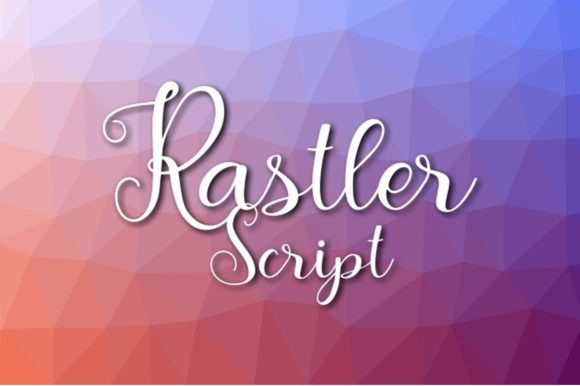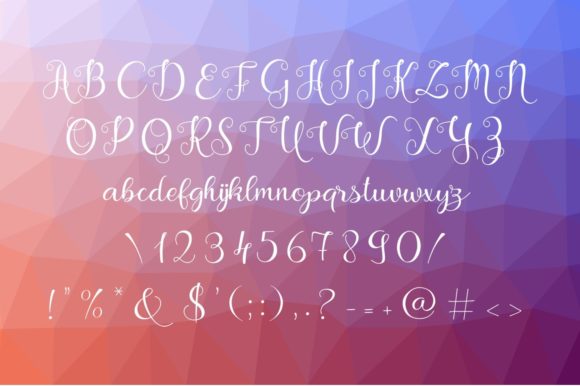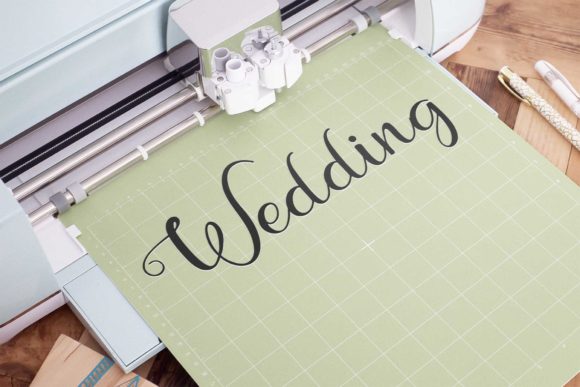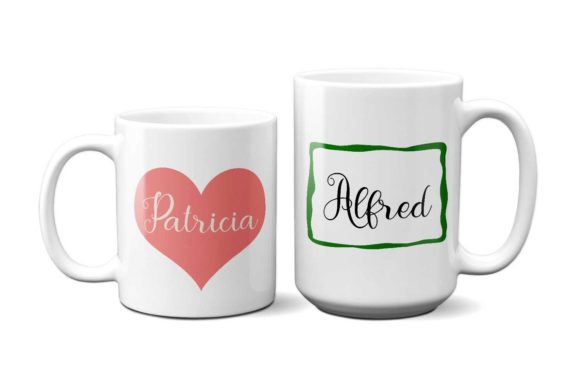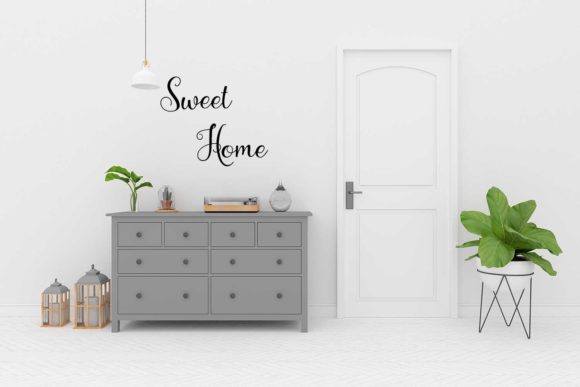
Rastler Font
About Rastler Font
Introducing Rastler, a chic and refined script font that exudes sophistication and elegance. With its stylish alternates and ligatures, Rastler is the perfect choice for adding a touch of class and elegance to any project.
Rastler’s sleek and flowing letterforms capture the essence of sophistication. Each character is meticulously crafted to maintain a balance between elegance and readability, creating a harmonious composition. The stylish alternates and ligatures add versatility and variety, allowing you to customize the look and feel of your designs.
The versatility of Rastler makes it suitable for a wide range of projects. Whether you’re working on branding, wedding invitations, logos, product packaging, or any other creative endeavor, Rastler adds a refined and polished touch. Its script nature creates a sense of elegance and grace, elevating the overall aesthetic of your designs.
Rastler’s chic and refined style makes it a perfect match for various design contexts. The stylish alternates and ligatures provide endless possibilities for customization, ensuring that your designs stand out. Whether used for creating elegant logos or adding a touch of sophistication to typography, Rastler brings a sense of class and elegance.
No matter the project or theme, Rastler has the potential to enhance any creation. Its chic and refined nature make it a versatile choice for various design projects. Embrace the elegance of Rastler and confidently incorporate it into your designs, creating visually stunning compositions that exude sophistication.
In summary, Rastler is a chic and refined script font that exudes sophistication and elegance. Its stylish alternates and ligatures provide versatility and customization options. Embrace the versatility of Rastler and confidently add it to your projects, creating visually stunning compositions that capture attention and emanate class.